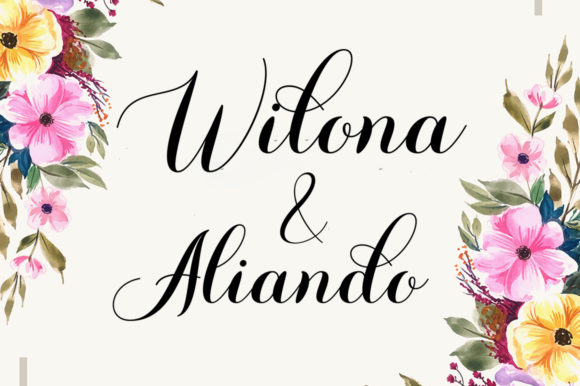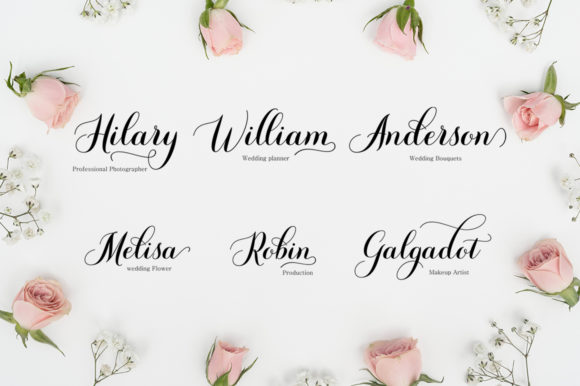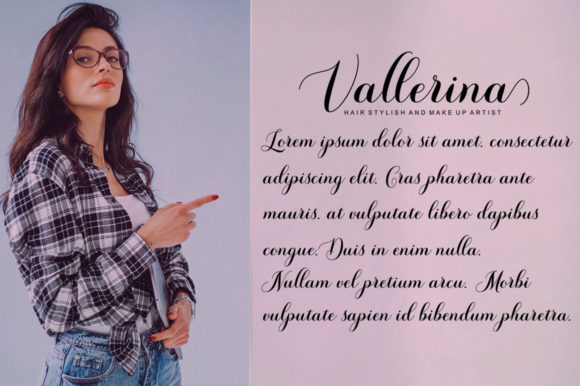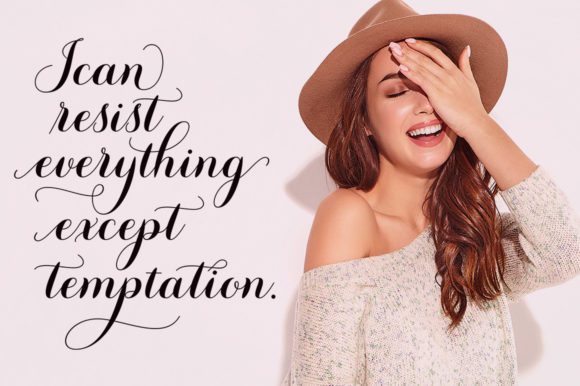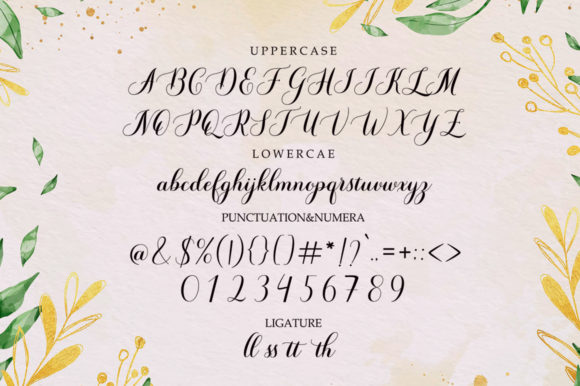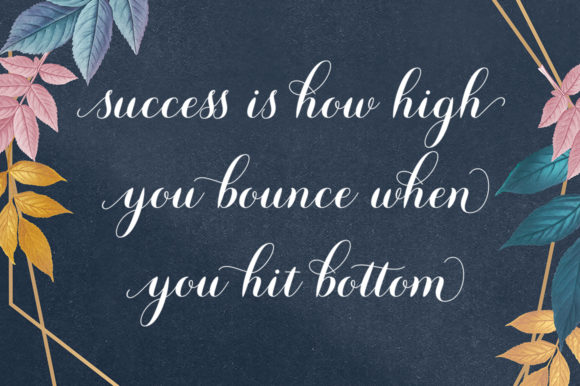
Introducing Goldie Font: Elevate Your Designs with Elegance and Charm
Are you on the hunt for a font that exudes both charm and elegance? Look no further than Goldie Font, a stunning handwritten script that is sure to elevate your designs to new heights. This beautiful font is a stylish homage to classic calligraphy, featuring a varying baseline, smooth lines, gorgeous glyphs, and stunning alternates.
A Font that Combines Style and Versatility
Goldie Font is the perfect choice for designers and crafters looking for a font that can add a touch of sophistication to their work. Whether you’re creating social media graphics, crafting DIY projects, or designing marketing materials, Goldie is the ideal choice. Its elegant and charming feel makes it suitable for a wide range of applications, from wedding invitations and event branding to packaging and advertising.
Key Features of Goldie Font
So, what makes Goldie Font so special? Here are just a few of its key features:
- Varying Baseline: Goldie Font features a varying baseline, which gives it a natural, handwritten feel that’s perfect for creating elegant and sophisticated designs.
- Smooth Lines: The font’s smooth lines and curves create a beautiful, fluid look that’s sure to impress.
- Gorgeous Glyphs: Goldie Font comes with a wide range of gorgeous glyphs, including stunning alternates and ligatures.
- PUA Encoded: The font is PUA encoded, making it easy to access all of the cute glyphs and swashes.
- Alternate Glyphs and Ligatures: Goldie Font also features a wealth of special features, including alternate glyphs and ligatures, which allow you to add extra flair to your designs.
Goldie Font is the perfect choice for designers and crafters who want to add a touch of elegance and sophistication to their work. Here are just a few ways you can use Goldie Font:
- Instagram Graphics: Use Goldie Font to create stunning Instagram graphics that will help you stand out from the crowd.
- DIY Projects: Add a touch of elegance to your DIY projects, such as handmade cards, gift tags, and invitations.
- Marketing Materials: Use Goldie Font to create beautiful marketing materials, such as brochures, flyers, and posters.
- Wedding Invitations: Create stunning wedding invitations and event branding with Goldie Font.
Why Choose Goldie Font?
So, why choose Goldie Font over other fonts on the market? Here are just a few reasons:
- Unique and Elegant: Goldie Font is a unique and elegant font that’s sure to make your designs stand out.
- Versatile: The font is versatile and can be used for a wide range of applications.
- Easy to Use: Goldie Font is easy to use, even for those who are new to design.
- PUA Encoded: The font is PUA encoded, making it easy to access all of the cute glyphs and swashes.
In conclusion, Goldie Font is a stunning handwritten script that’s perfect for designers and crafters who want to add a touch of elegance and sophistication to their work. With its varying baseline, smooth lines, gorgeous glyphs, and stunning alternates, Goldie Font is sure to elevate your designs to new heights. Whether you’re creating social media graphics, crafting DIY projects, or designing marketing materials, Goldie Font is the ideal choice.
Get Ready to Elevate Your Designs with Goldie Font